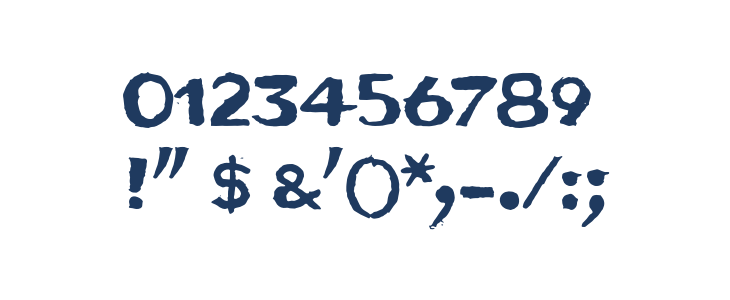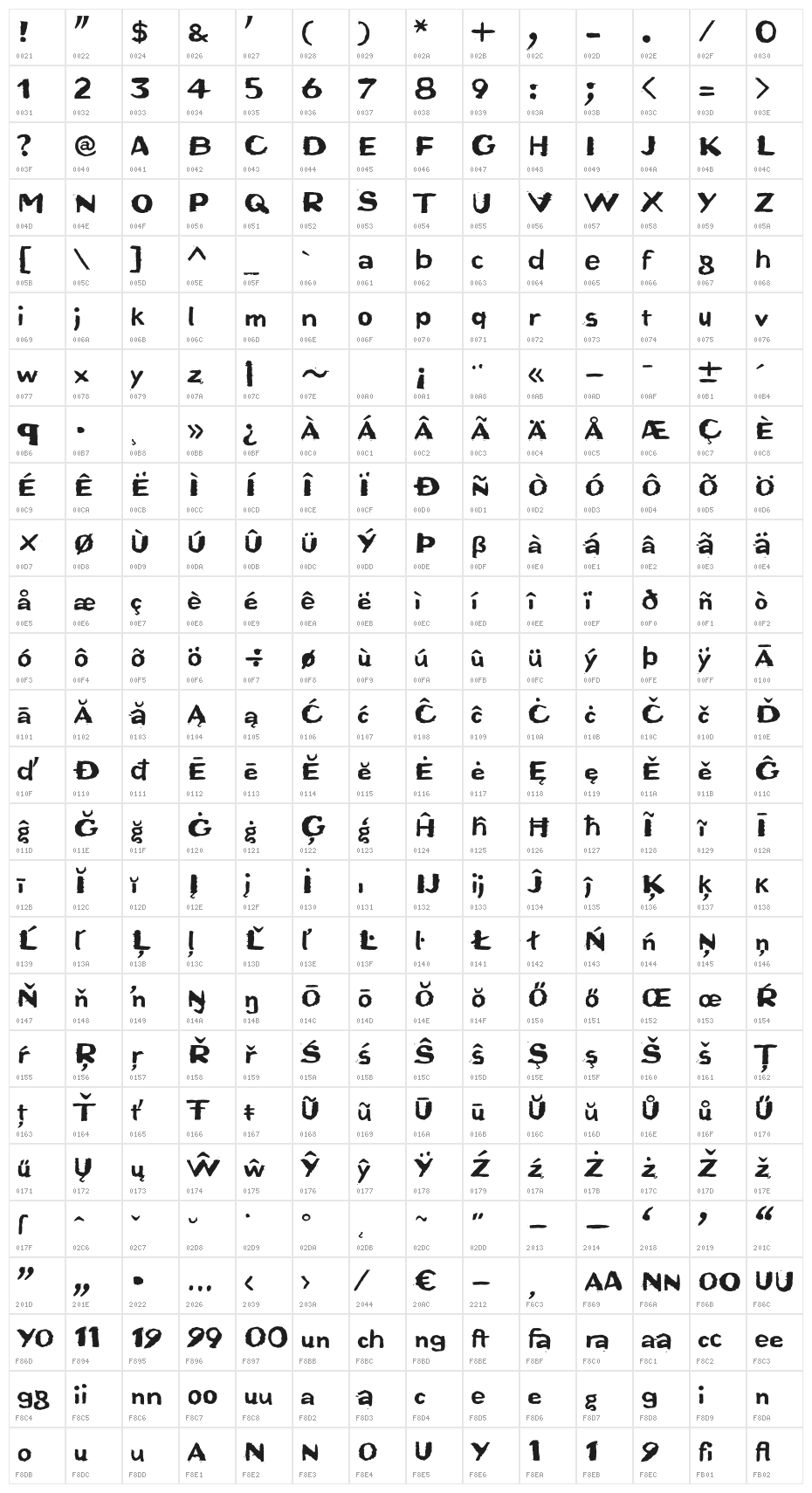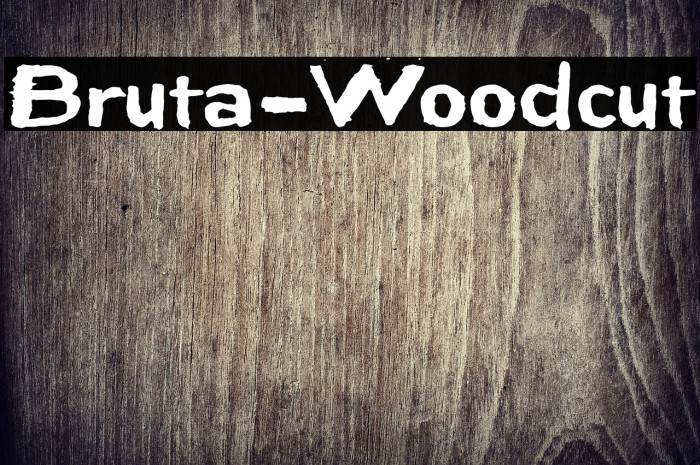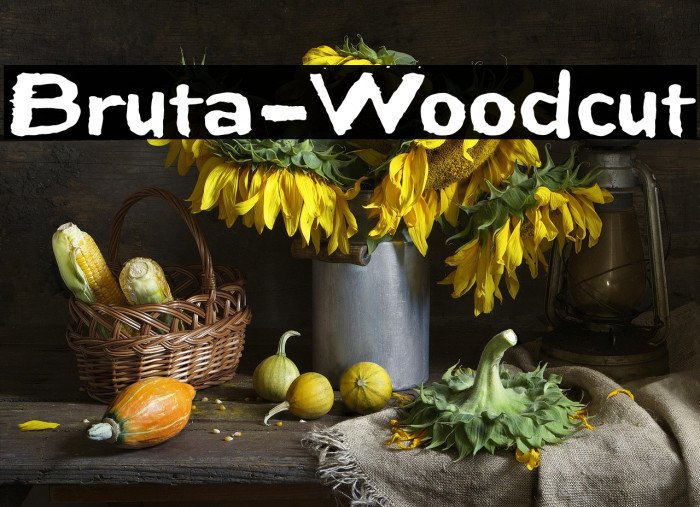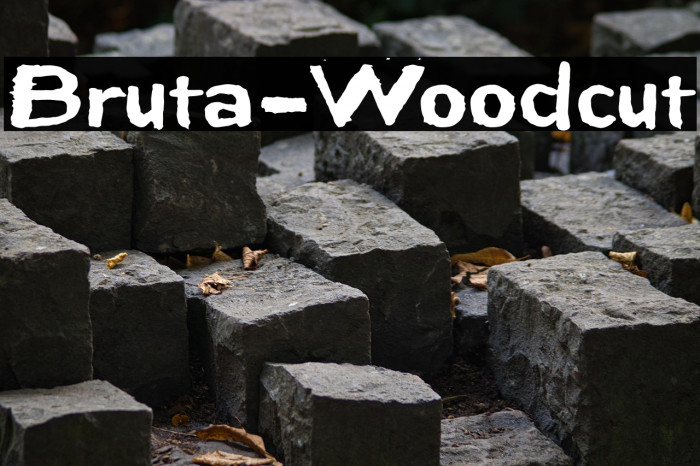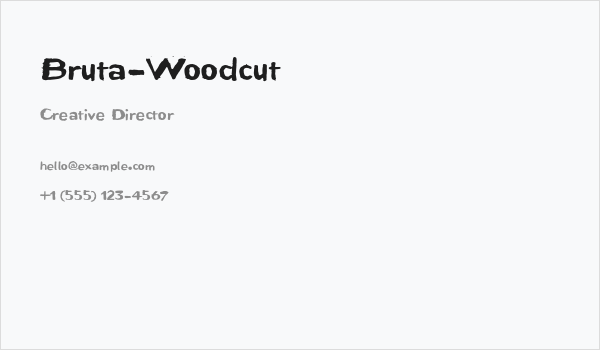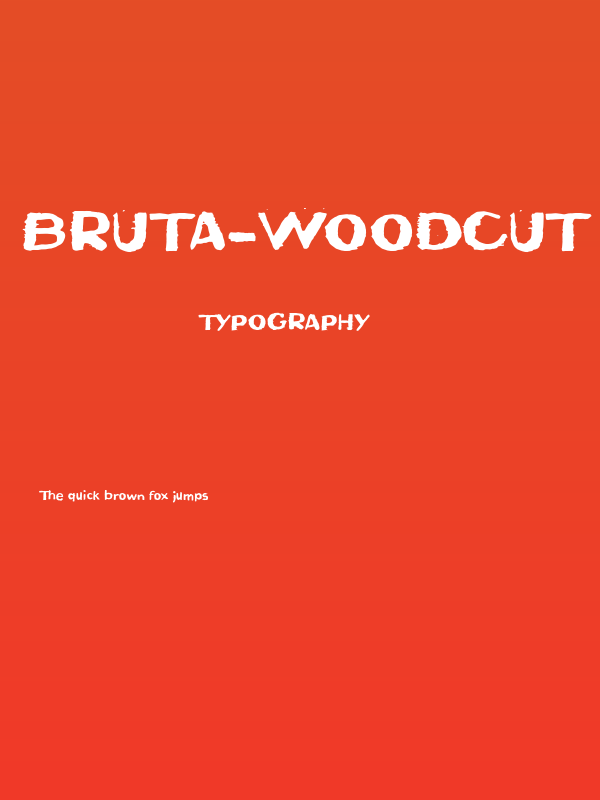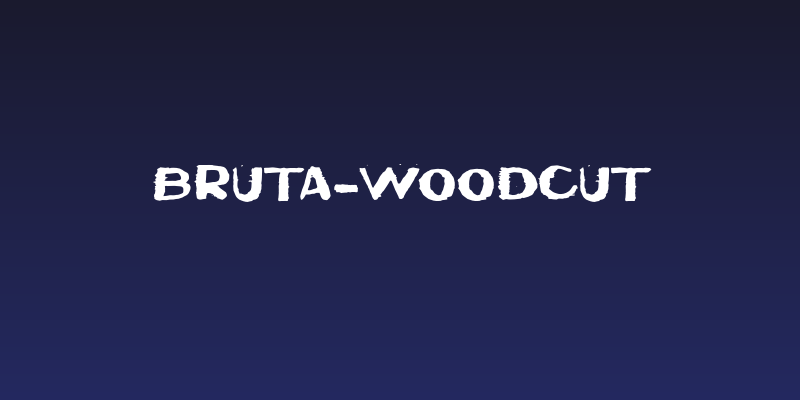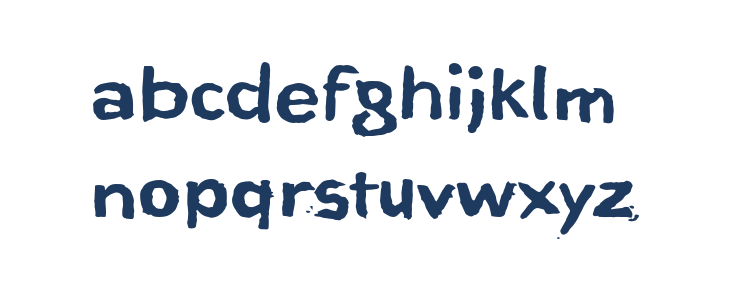
Bruta-Woodcut Font
Bruta-Woodcut Description
This font features a bold, rugged style reminiscent of traditional woodcut techniques. Each character appears hand-carved, with irregular edges and a textured appearance that adds a sense of authenticity and craftsmanship. The uppercase and lowercase letters maintain a consistent weight, while the numerals and special characters complement the overall aesthetic. The font's organic, tactile quality makes it stand out, offering a unique visual impact that is both artistic and expressive.